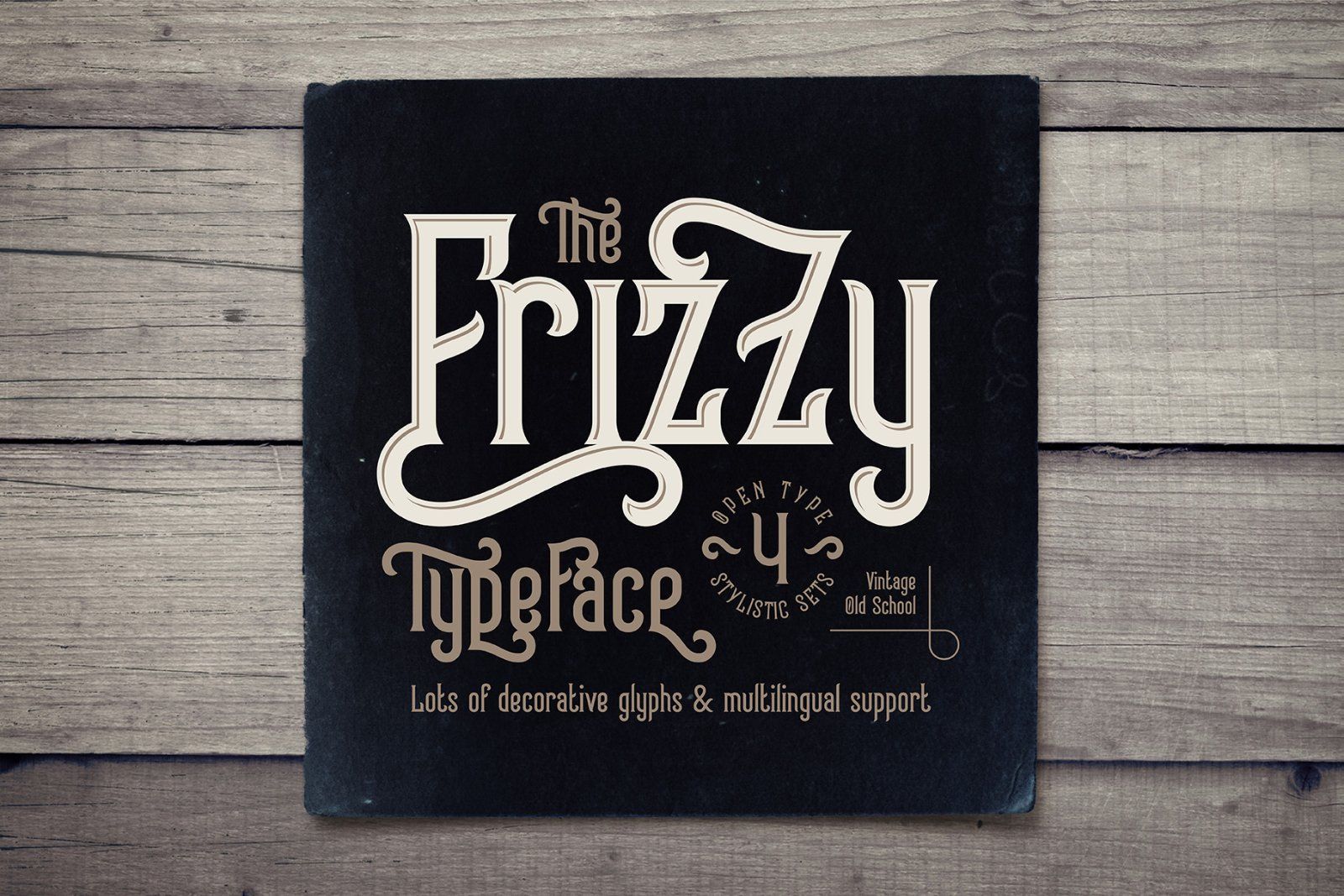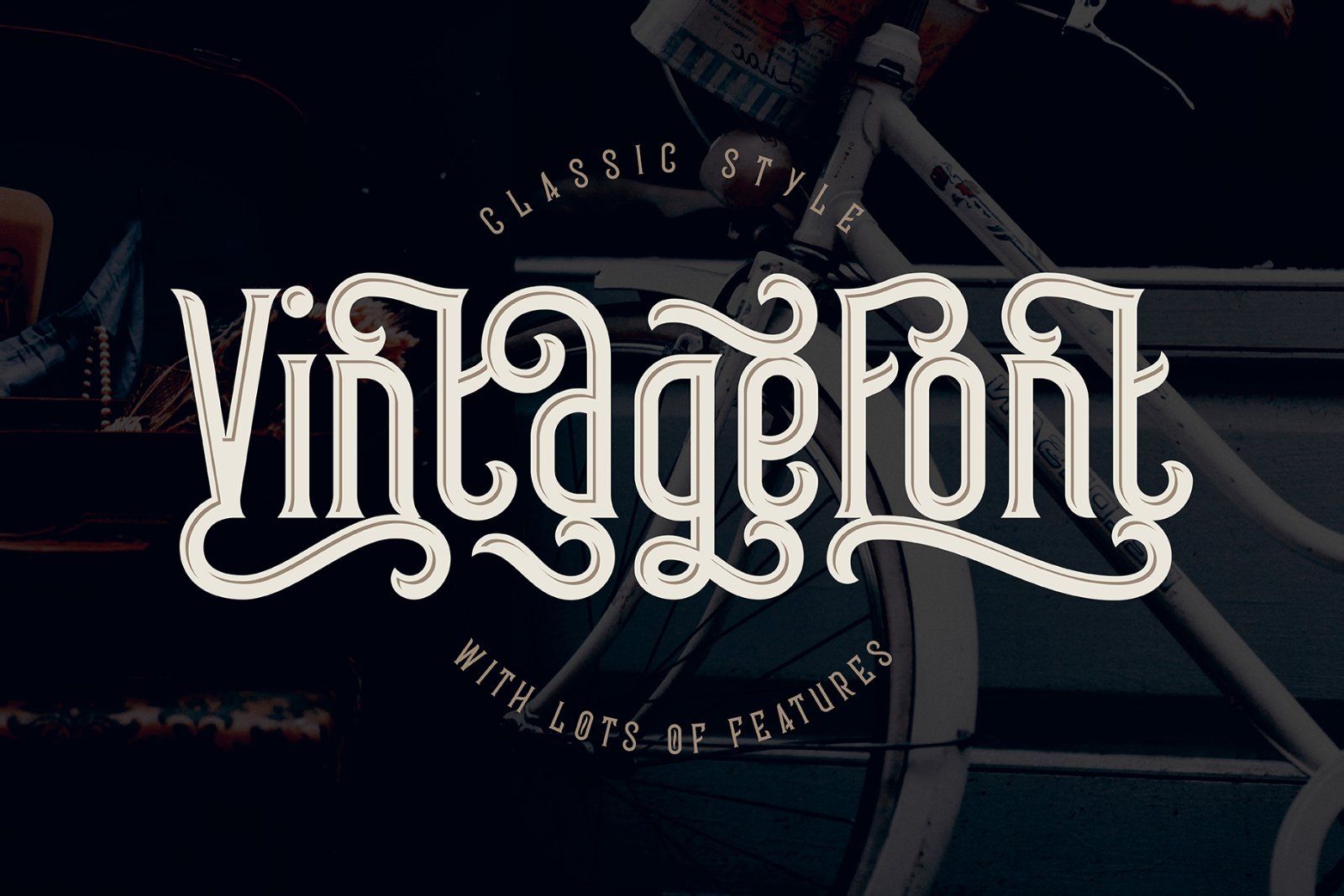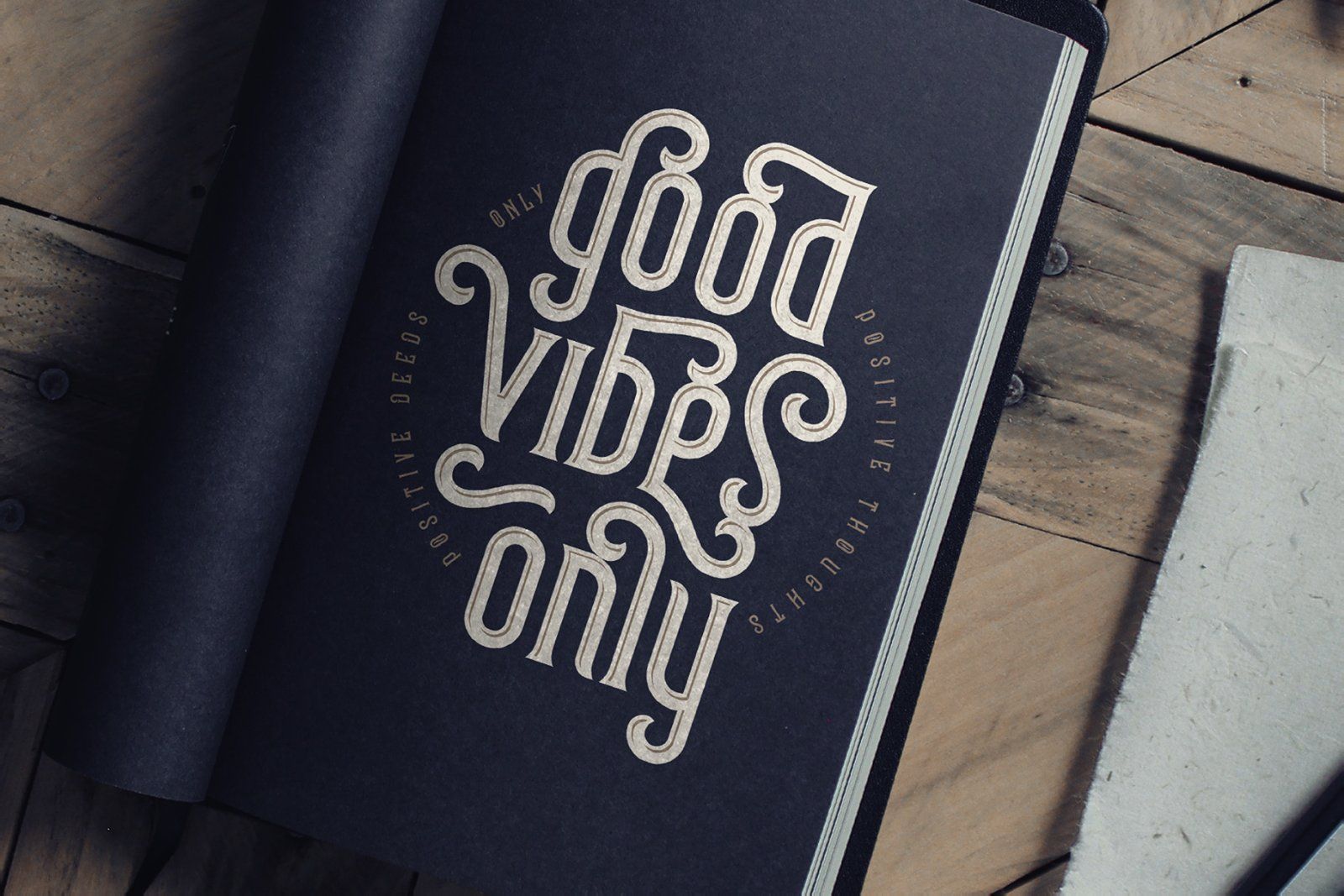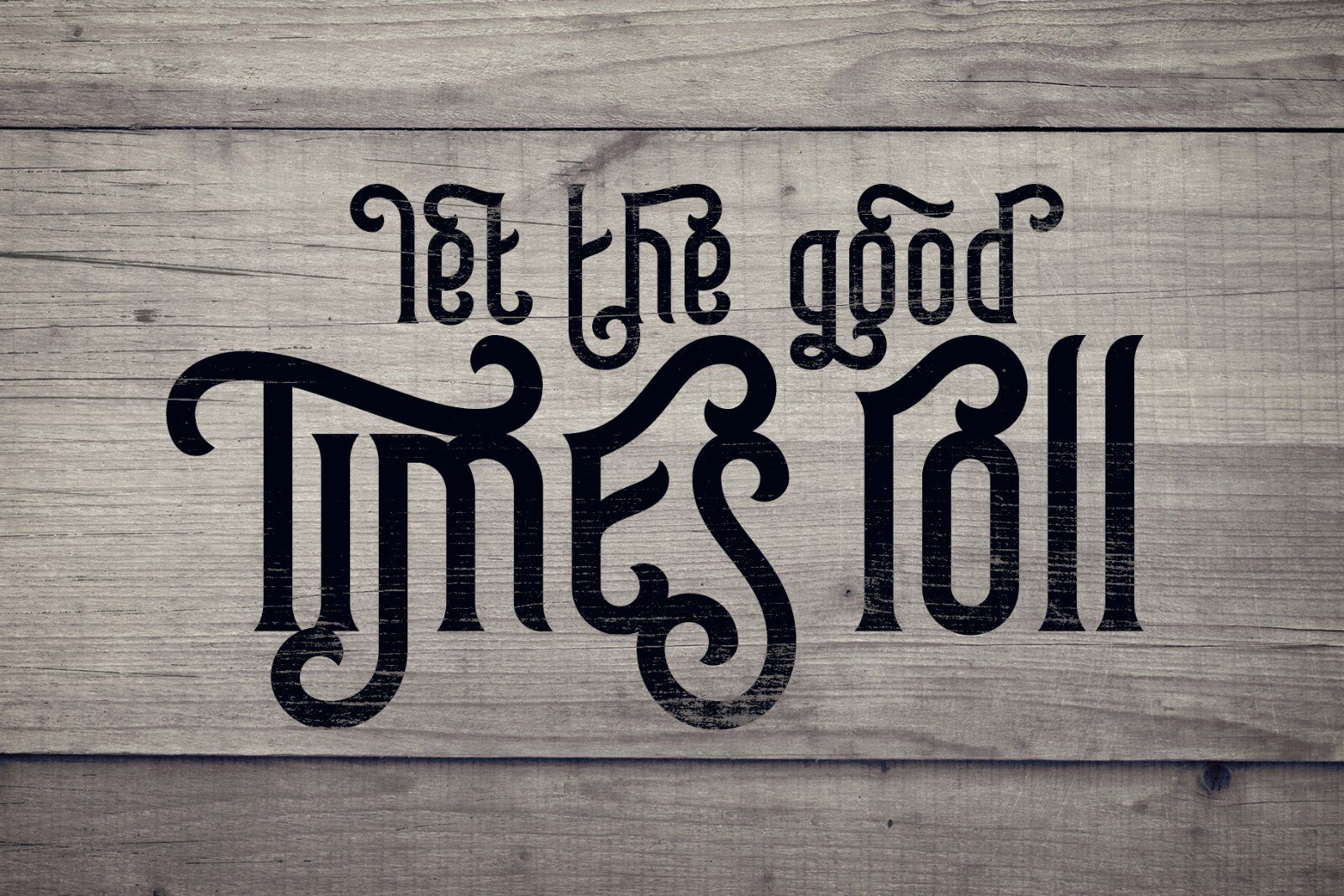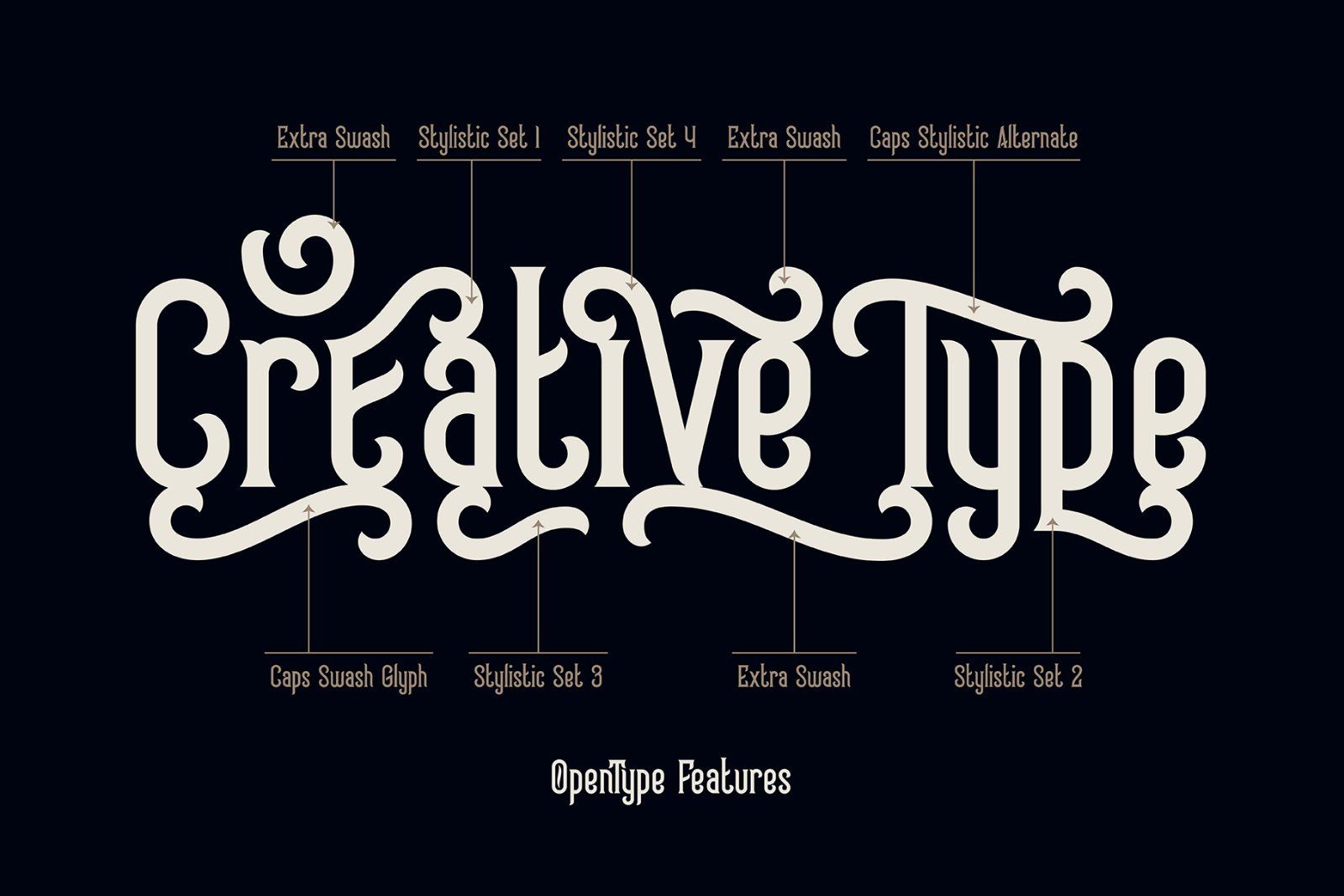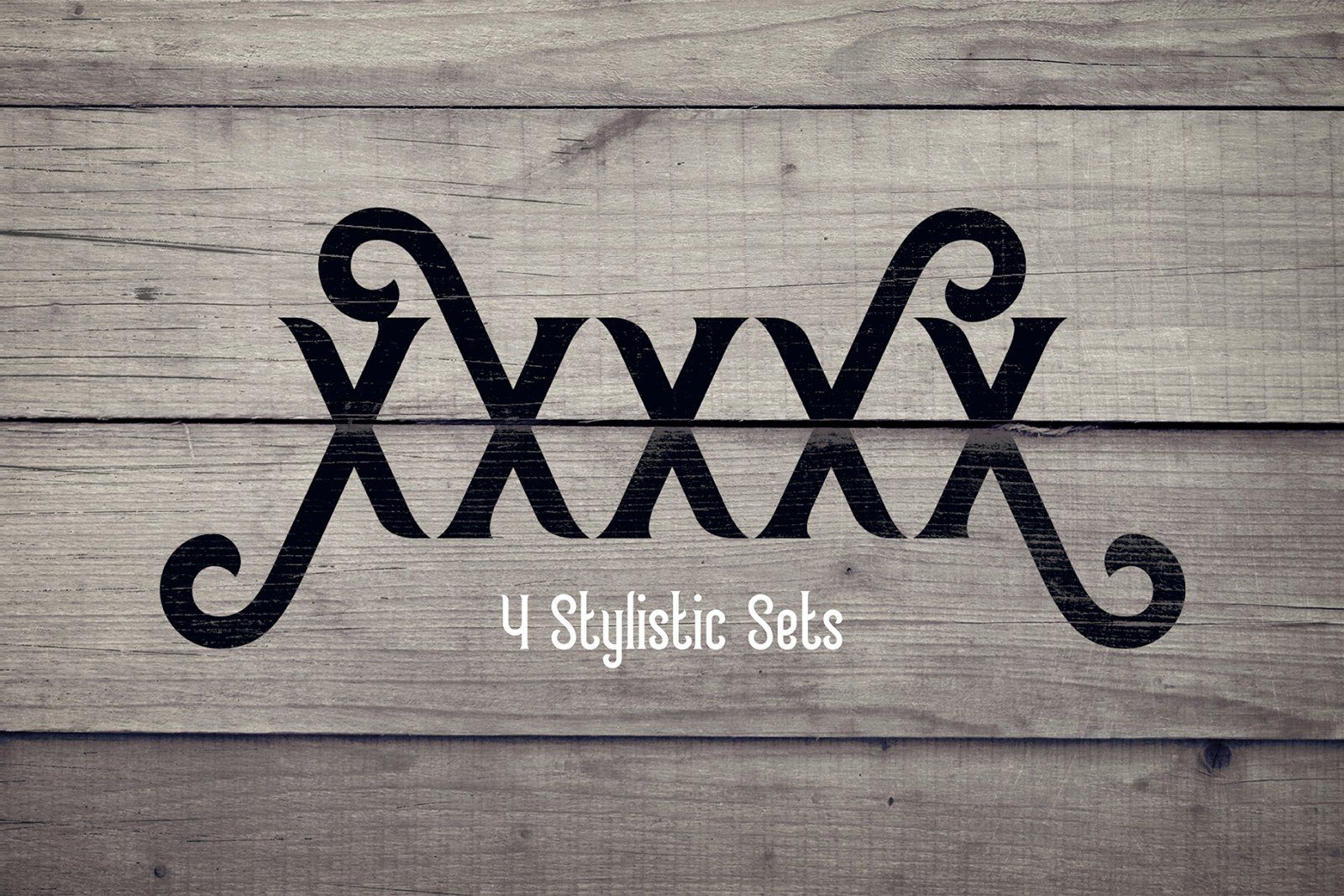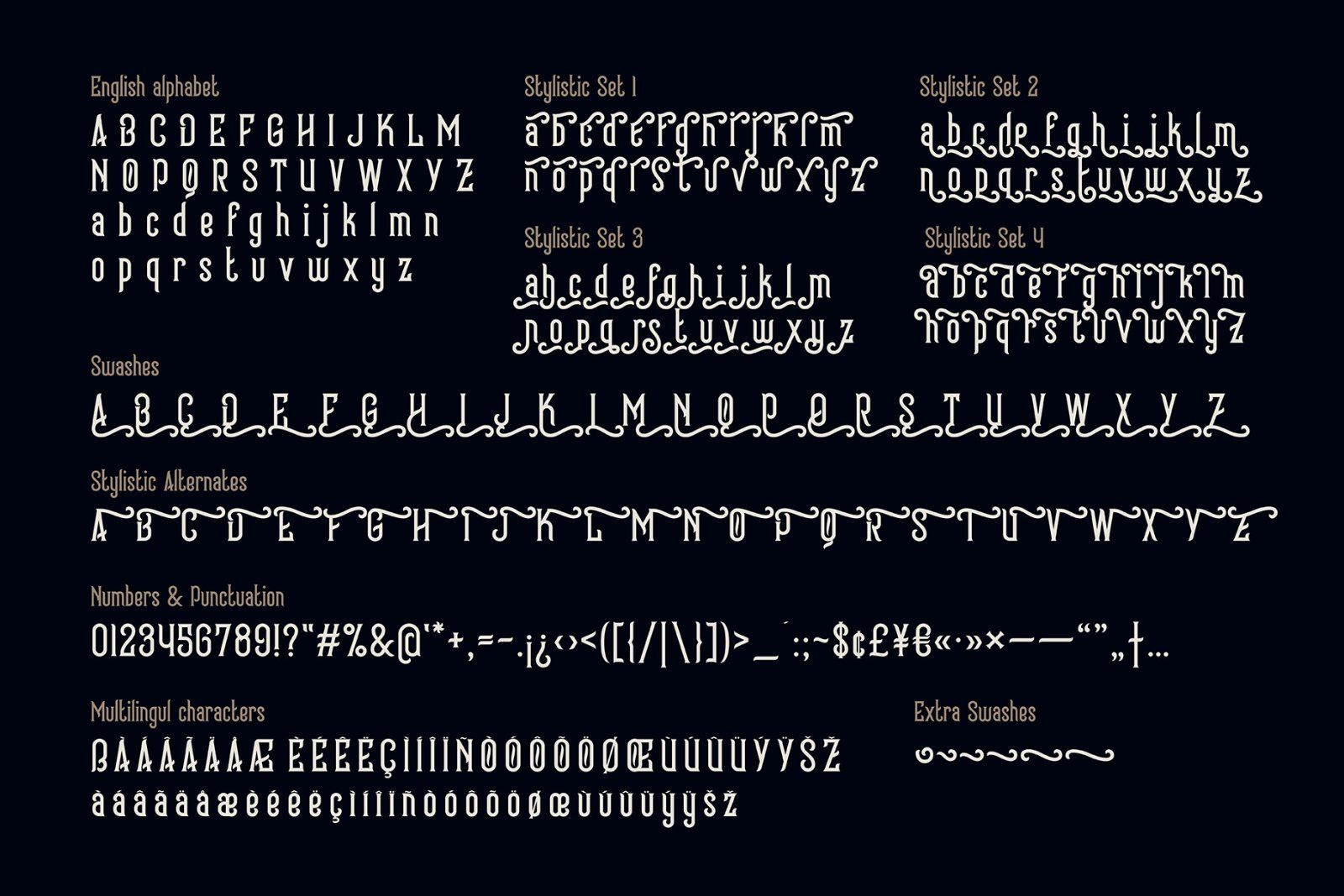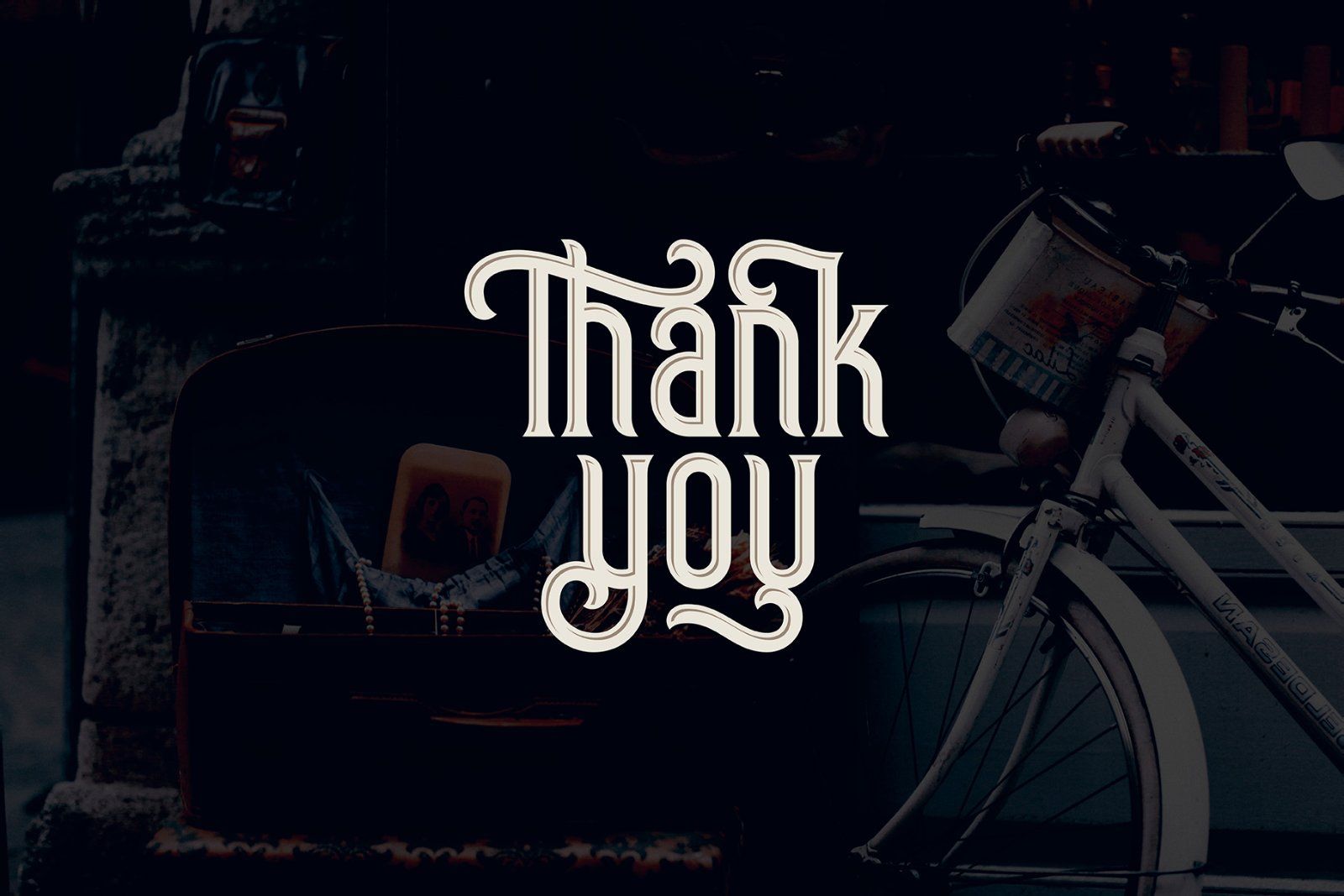
Introducing a vintage style typeface Frizzy. It's a classic look font with a big set of additional characters. Lowercase letters has 4 stylistic sets with different shapes. Uppercase letter has two additional glyphs with upper and lower swashes. All this features can be found in OpenType panel. Also 5 extra swashes are available in glyphs panel. Combining all of this features you can create an interesting and unique lettering compositions.